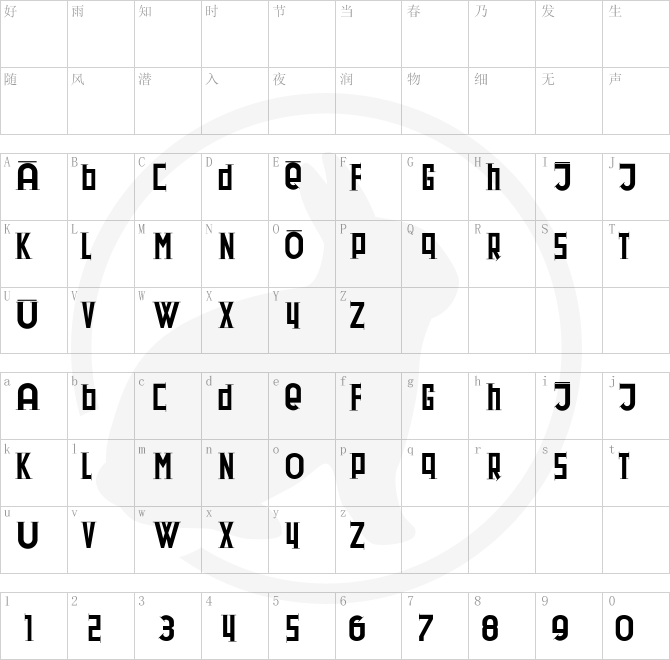
- Font Name:DadaDaSerif
DadaDaSerif.ttf is a very beautiful artistic font, DadaDaSerif.ttf is widely used in the design and printing of various books and pictures,DadaDaSerif.ttf has a strong visual impact,DadaDaSerif.ttf is a commonly used font in newspapers, magazines and books, and is used in posters, e-commerce Poster design, store design, logo design, font design and other fields.DadaDaSerif.